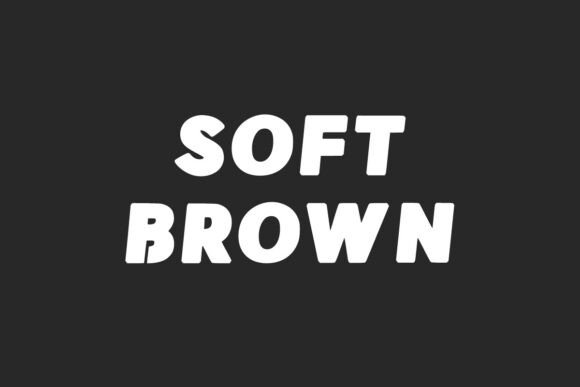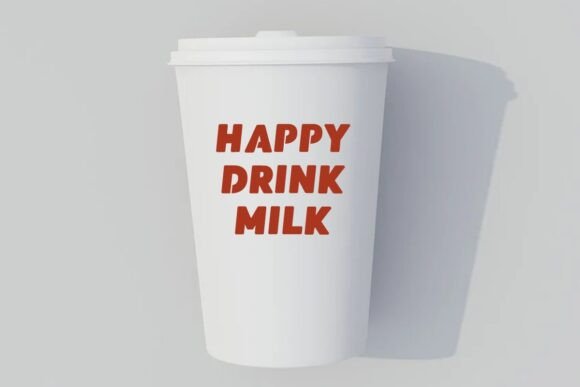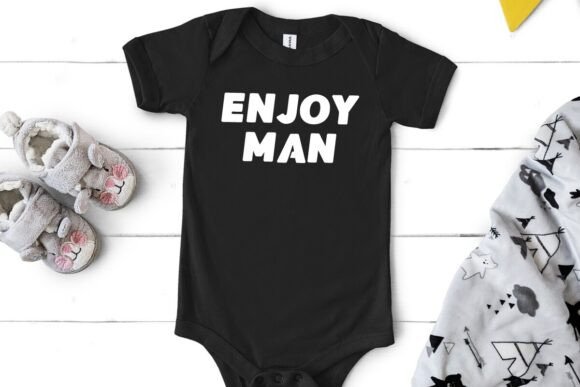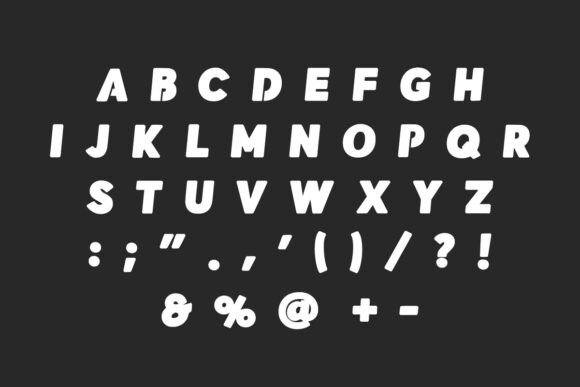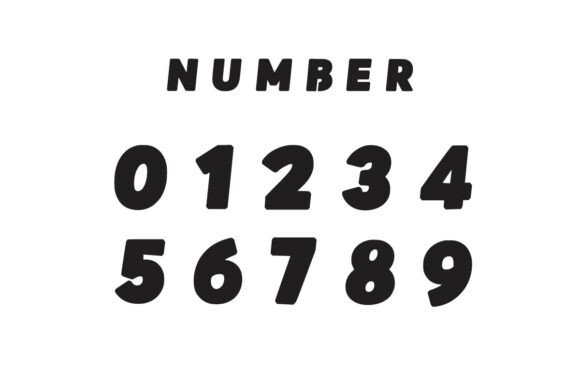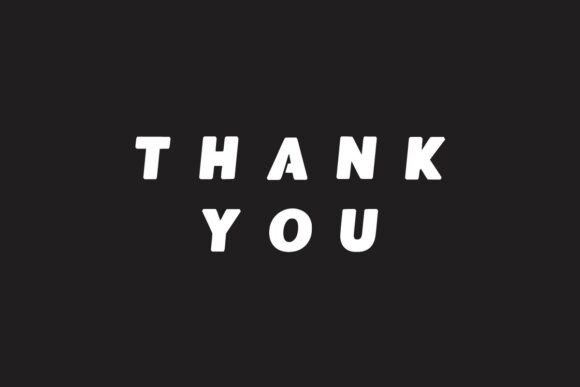
Introducing Force Magic Font: The Ultimate Display Font for Friendly Designs
Are you tired of using the same old fonts for your designs? Look no further than Force Magic, a bold display font that exudes impeccable friendliness. This versatile font is perfect for a wide range of creative projects, from crafts and digital design to presentations and greeting cards. In this article, we’ll dive into the world of Force Magic and explore its features, benefits, and uses.
The Perfect Blend of Bold and Friendly
Force Magic is a bold display font that strikes the perfect balance between being eye-catching and approachable. Its unique design makes it an excellent choice for designers and crafters who want to add a touch of personality to their work. Whether you’re creating a logo, heading, or title, Force Magic is sure to make a statement.
One of the best things about Force Magic is its versatility. This font can be used for a wide range of creative projects, including:
- Crafts: Use Force Magic to add a personal touch to your handmade crafts, such as scrapbooking, card making, and DIY projects.
- Digital Design: Add a bold and friendly touch to your digital designs, including social media graphics, blog posts, and website headers.
- Presentations: Make your presentations stand out with Force Magic, perfect for titles, headings, and emphasis text.
- Greeting Cards: Create personalized and eye-catching greeting cards for special occasions, such as birthdays, weddings, and holidays.
Why Choose Force Magic?
So, what sets Force Magic apart from other fonts? Here are just a few reasons why this font is sure to become your new go-to:
- Unique Design: Force Magic has a one-of-a-kind design that’s sure to grab attention.
- Friendliness: This font exudes warmth and approachability, making it perfect for designs that require a personal touch.
- Versatility: Use Force Magic for a wide range of creative projects, from digital design to handmade crafts.
- Ease of Use: Force Magic is easy to read and works well in a variety of contexts, making it a convenient choice for designers and crafters.
Tips for Using Force Magic
To get the most out of Force Magic, here are a few tips to keep in mind:
- Pair with Other Fonts: Combine Force Magic with other fonts to create a unique and visually appealing design.
- Experiment with Colors: Try out different color schemes to find the perfect match for your design.
- Play with Sizes: Use Force Magic in different sizes to create visual hierarchy and emphasis.
Force Magic is a bold display font that’s sure to become your new favorite go-to font. With its unique design, friendliness, and versatility, this font is perfect for a wide range of creative projects. Whether you’re a designer, crafter, or DIY enthusiast, Force Magic is an excellent choice for adding a touch of personality to your work. So why wait? Give Force Magic a try today and see the magic for yourself!